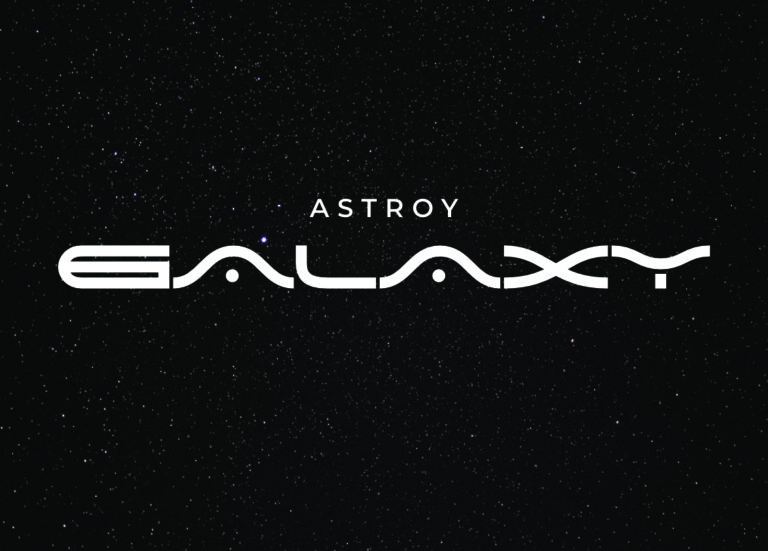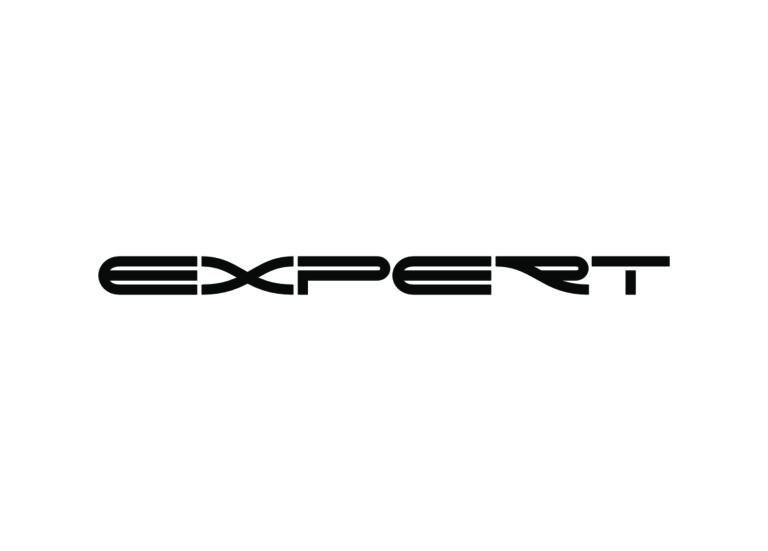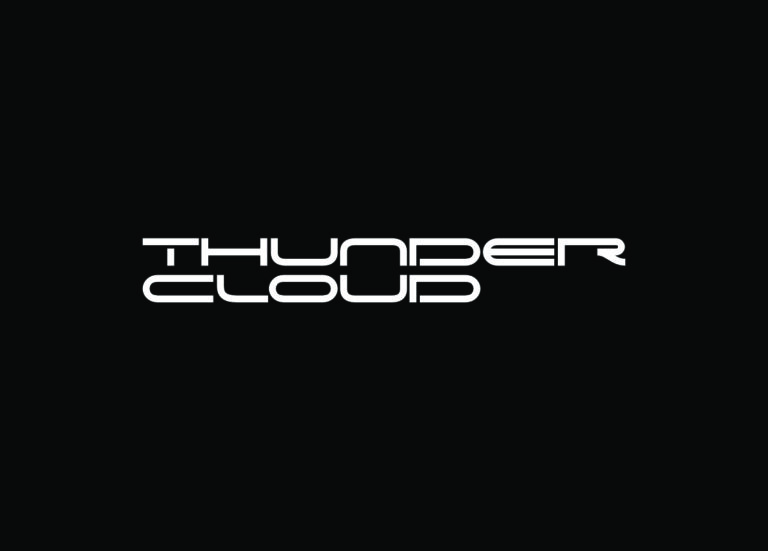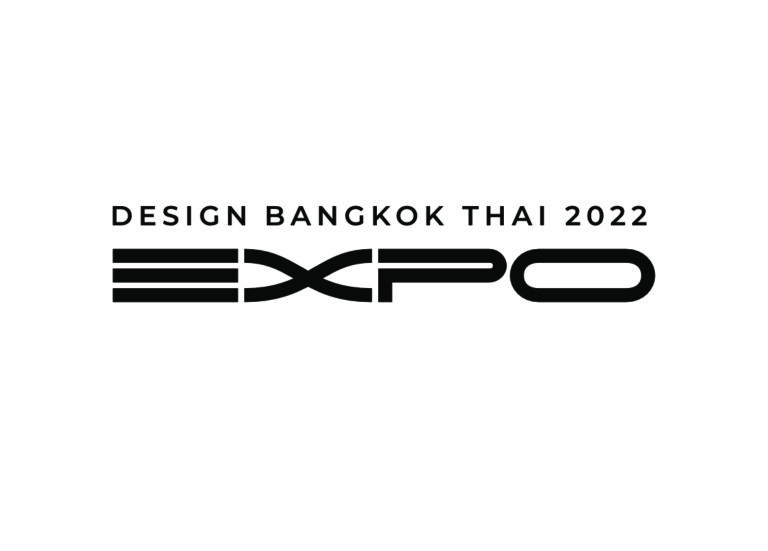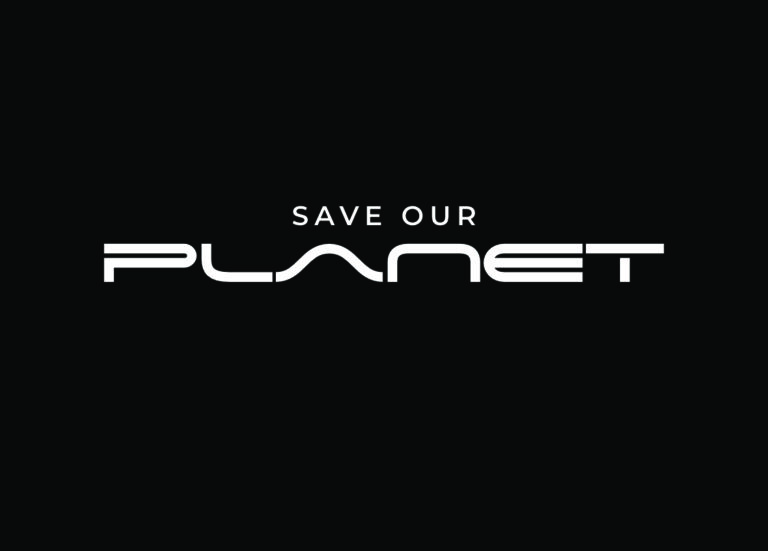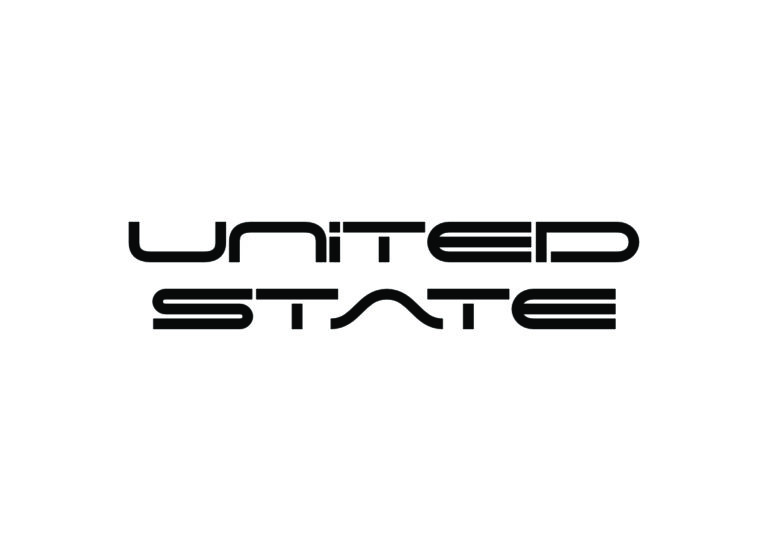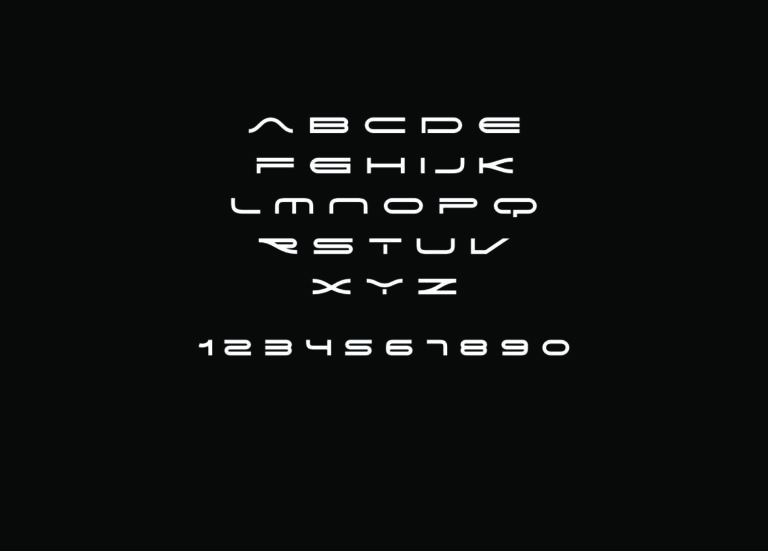
Astro Galaxy is a modern futuristic font designed for bold branding, sleek logos, and forward-thinking design. With its clean lines and high-tech vibe, it’s made for projects that live at the intersection of technology, innovation, and style.
Perfect for logo tech, engineering concepts, and anything that needs a futuristic edge, Astro Galaxy combines technical precision with minimalist cool. Whether you’re designing for a fashion-forward brand, a creative startup, or a cutting-edge tech company, this font delivers next-level energy with a sharp, modern finish.
Built for the future but grounded in clean, smart design—Astro Galaxy is your go-to for branding, logos, and any project where style meets science.